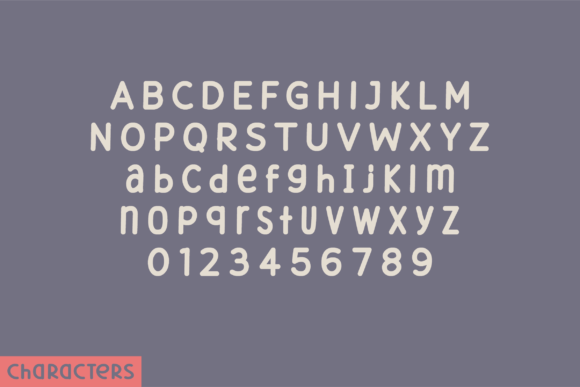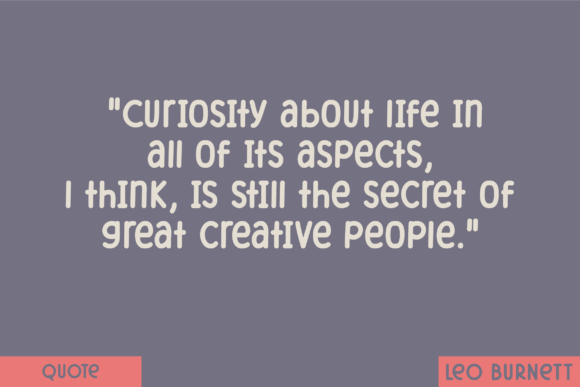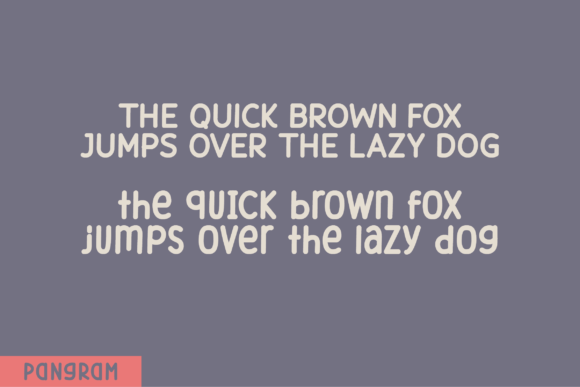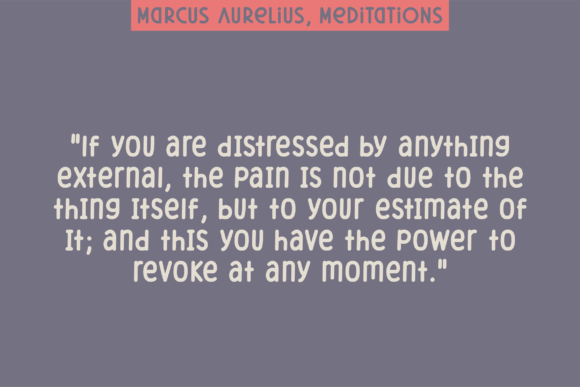
Introduction to Cherry Jellys Font
Cherry Jellys is a natural sans serif font created without changing a single node in each character’s indentation – this makes this font very interesting and unique.
Perfect for quotes, notes, tees, and any product design .
Key Features of Cherry Jellys Font